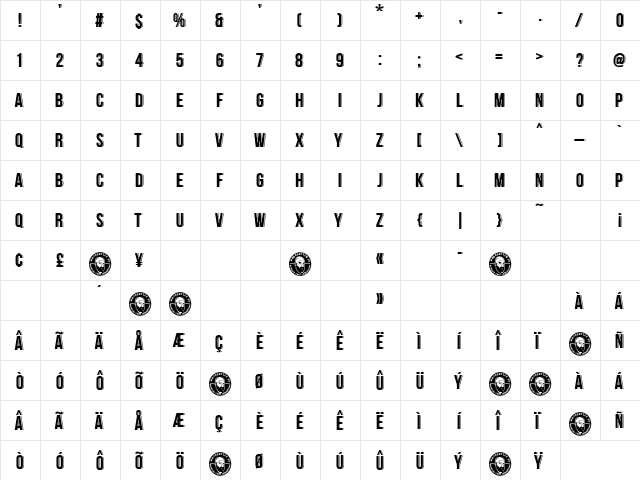
La Cebadita Regular
Design Context for La Cebadita Typeface
La Cebadita takes a measured approach to typography — its balanced proportions and neutral character make it a reliable workhorse for both digital and print work.